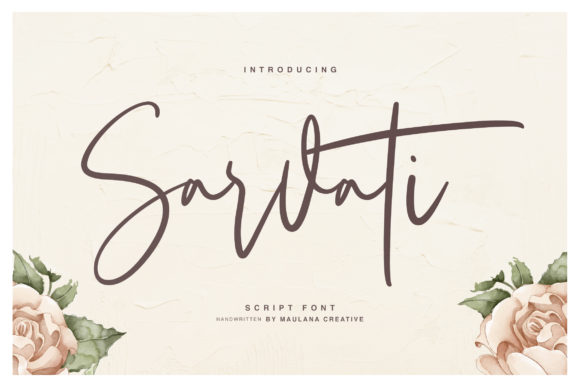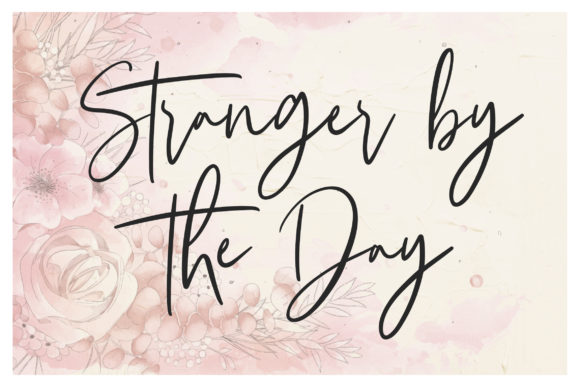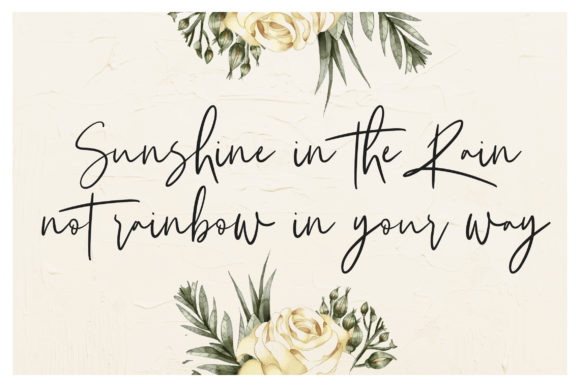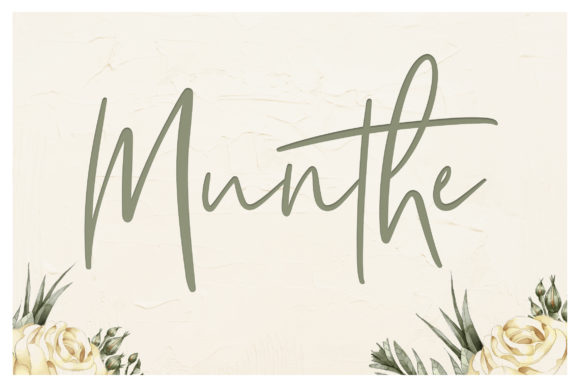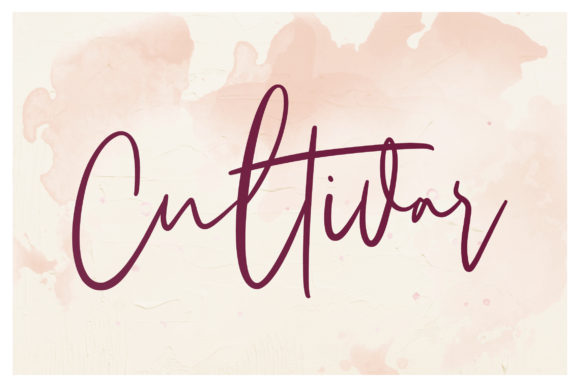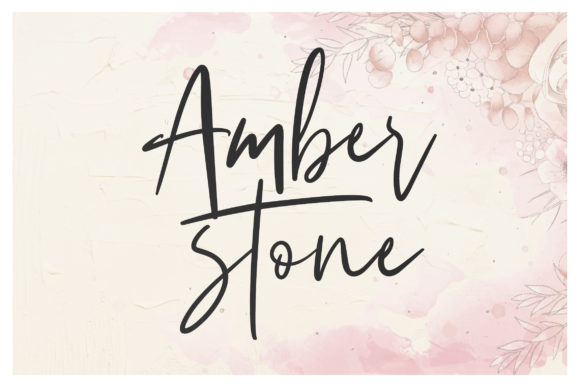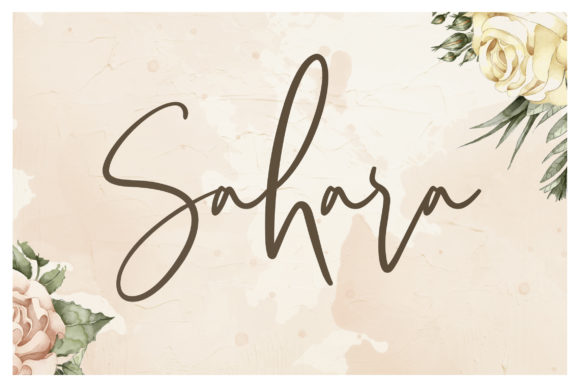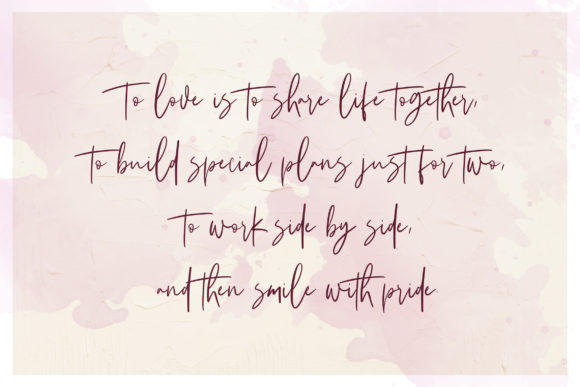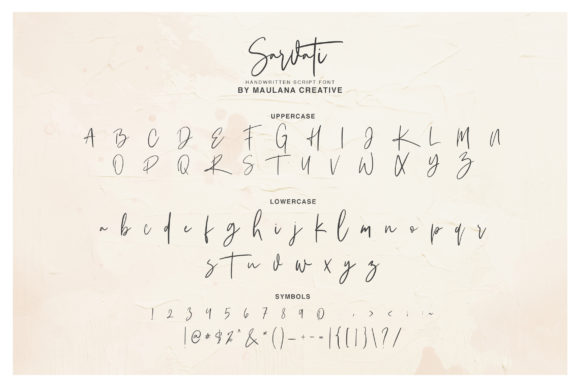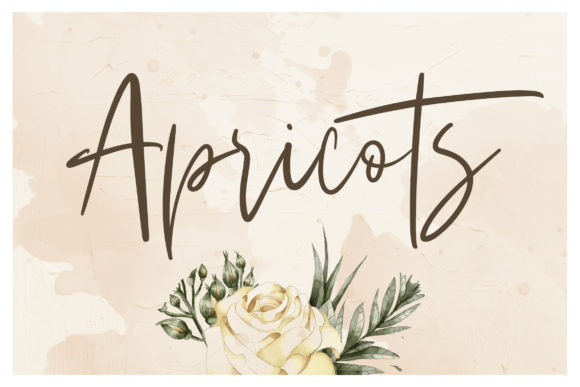
HomeScript FontsSarvati Font Script Fonts Sarvati Font FacebookXPinterestWhatsApp Sarvati Font Poster 2 Sarvati Font Poster 3 Sarvati Font Poster 4 Sarvati Font Poster 5 Sarvati Font Poster 6 Sarvati Font Poster 7 Sarvati Font Poster 8 Sarvati Font Poster 9 Sarvati Font Poster 10 Sarvati Font Poster 11 About Sarvati Font Sarvati is a fun and bold handwritten font with a cool feel. It will add an authentic vibe to any design project! DOWNLOAD ON CREATIVE FABRICAThis font is sold and delivered by Creative Fabrica. Font Canyon may earn a commission if you buy through this link. People also explored Cookies Font Hitz Girlz Font Jamilah Script Font Lovely Lailla Font Arcanite – Soft Slab Serif Font Fami Font Whistle Font Lovely Monogram Font Present Font Miarlem Font 396 0 TagsSarvati Font Previous articleLany Jesty Script FontNext articleFresh Font LEAVE A REPLY Cancel reply Comment: Please enter your comment! Name:* Please enter your name here Email:* You have entered an incorrect email address! Please enter your email address here Website: Save my name, email, and website in this browser for the next time I comment. Personal Use Free Klotee Personal Use Free Read more about this font Crellia Script Personal Use Free Read more about this font Uchiyama Personal Use Free Read more about this font Avagan Personal Use Free Read more about this font BLOG The 10 Best Handwriting Fonts to Add Personality to Your Designs 10 of the Best Handwriting Fonts for Adding Personality to Your Designs There will undoubtedly be no other better choice than handwriting fonts to give... 5 Fonts That Will Dominate Design Trends in 2026 How to Install and Use Fonts on Windows, macOS, and Web Projects Exploring Font Trends